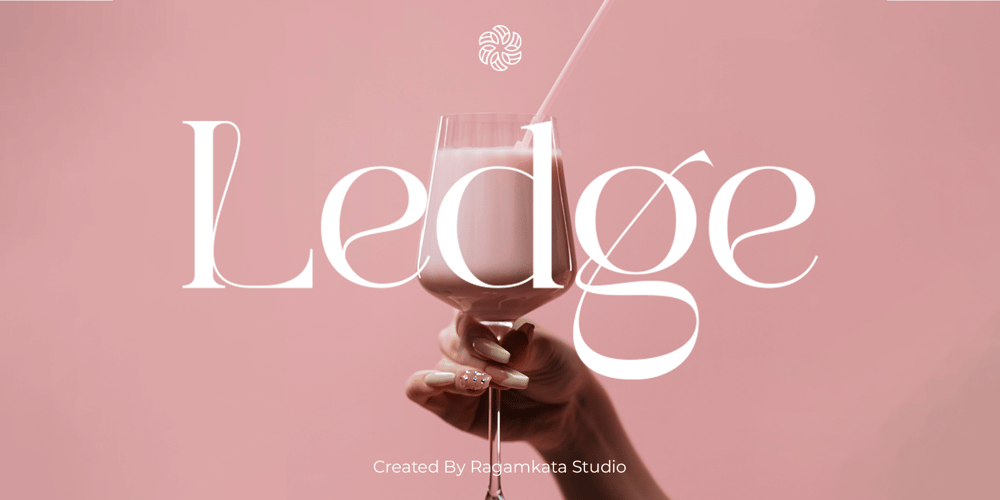
Ledge Font Family was designed by Yogiswhara Dio Prakoso Riadi and published by RagamKata. Ledge contains 1 styles and family package options. Ledge is a type of elegant display font that features large, bold lettering with unique decorative details on each character. The font gives off an elegant and classic feel, while still appearing modern and in line with current design trends. Ledge is well-suited for a variety of projects that require a high-end, eye-catching look,such as wedding invitations, luxury product packaging design, or promotional materials for brands looking to convey an exclusive and luxurious image. This serif font is also suitable for logo design or website design that aims to showcase a creative and elegant look, while still maintaining a professional and classic appearance.”